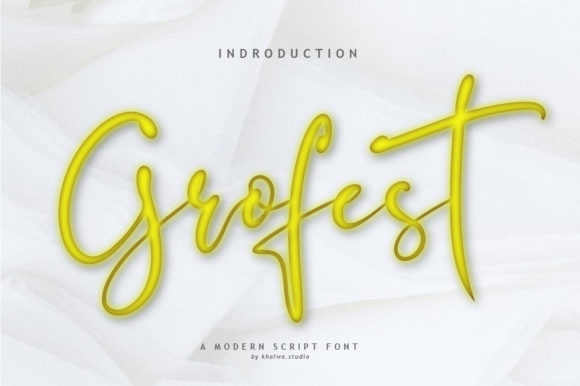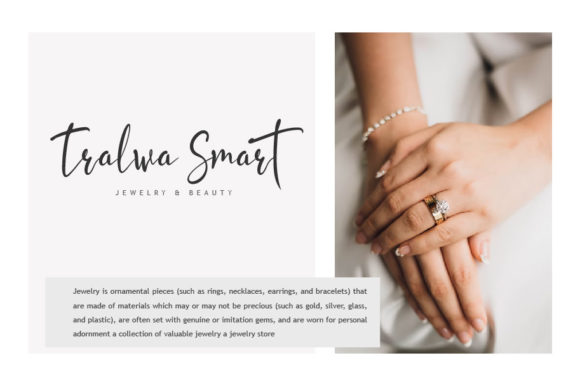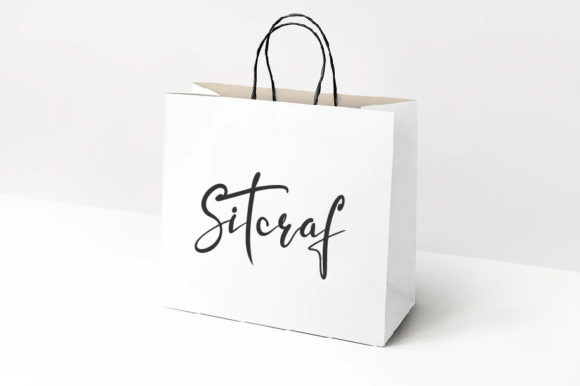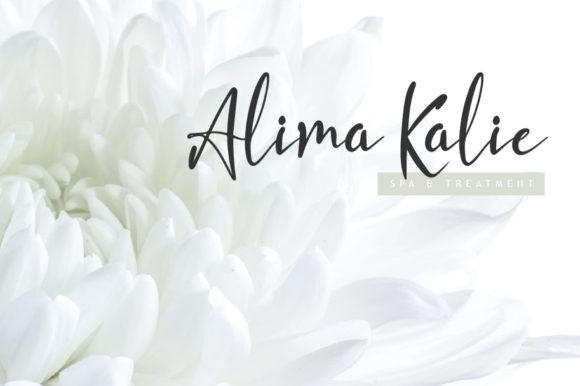
About Grofest Font
Grofest is a relaxed and elegant handwritten font. It is the best choice for creating eye catching logos, branding and quotes. Every letter has a unique and beautiful touch, which will make your design come alive!